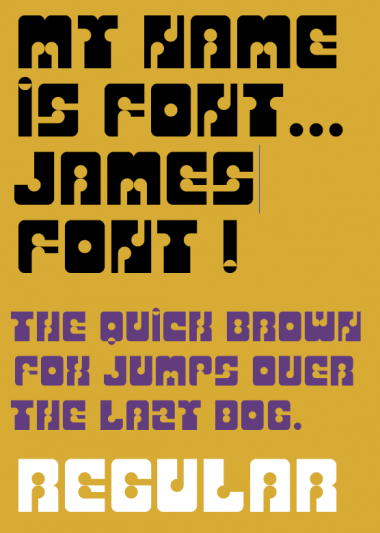
My Name Is Font
My name is Font, James Font! Take a look at the example, hope you like it. Only capitals, no numbers.
This is great. I once wanted to do something similar, and i failed badly, because i did not understand the rythm ...
somehow this reminds me of tom & jerry....